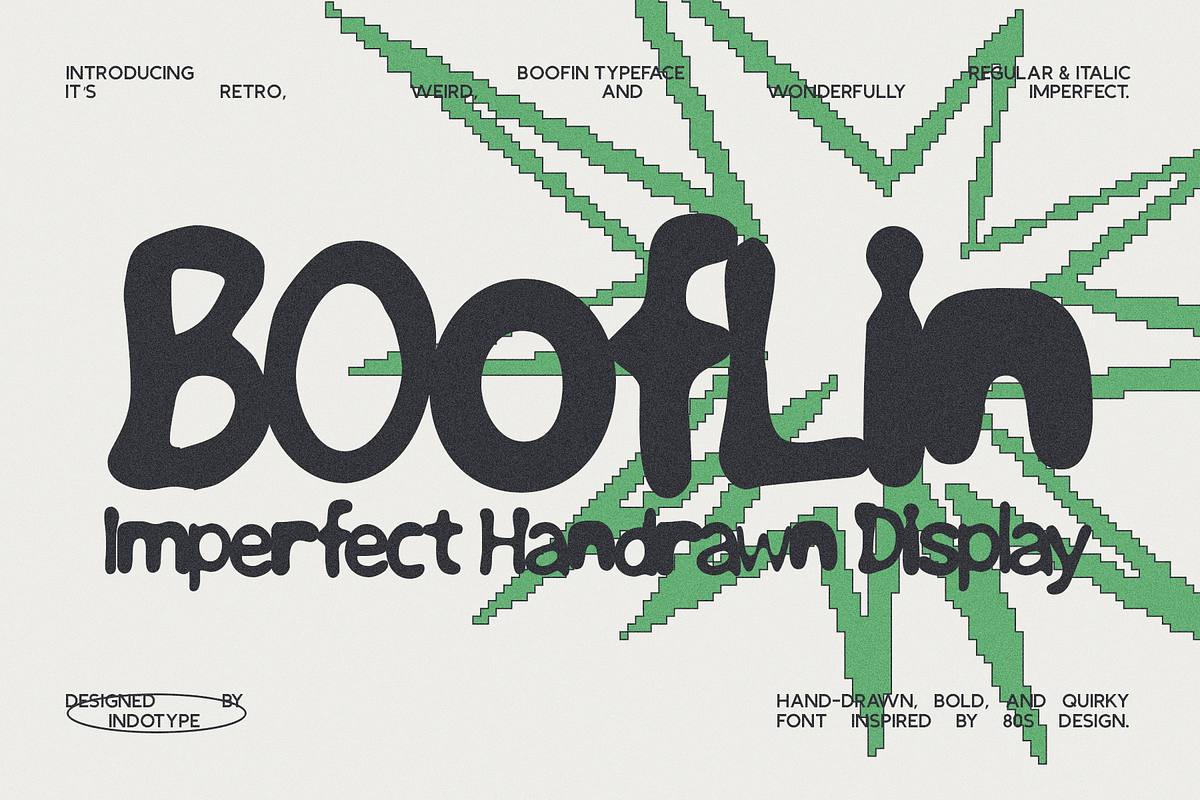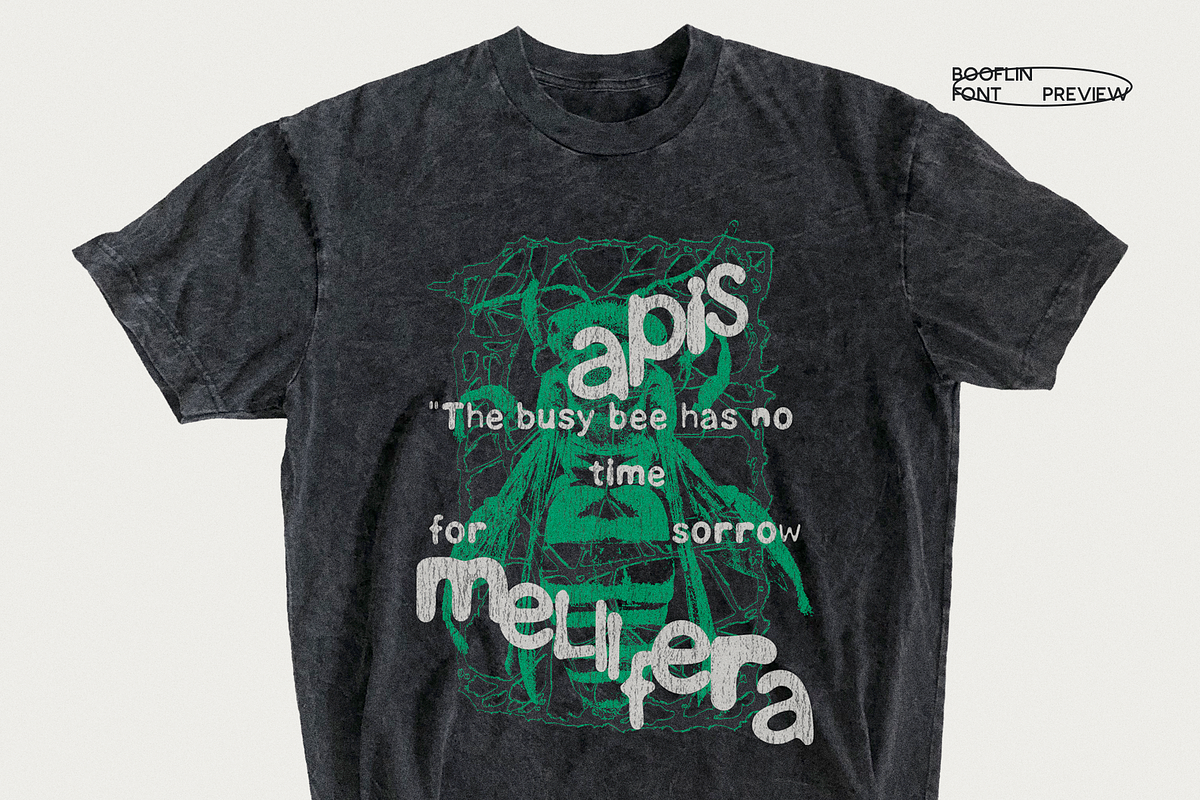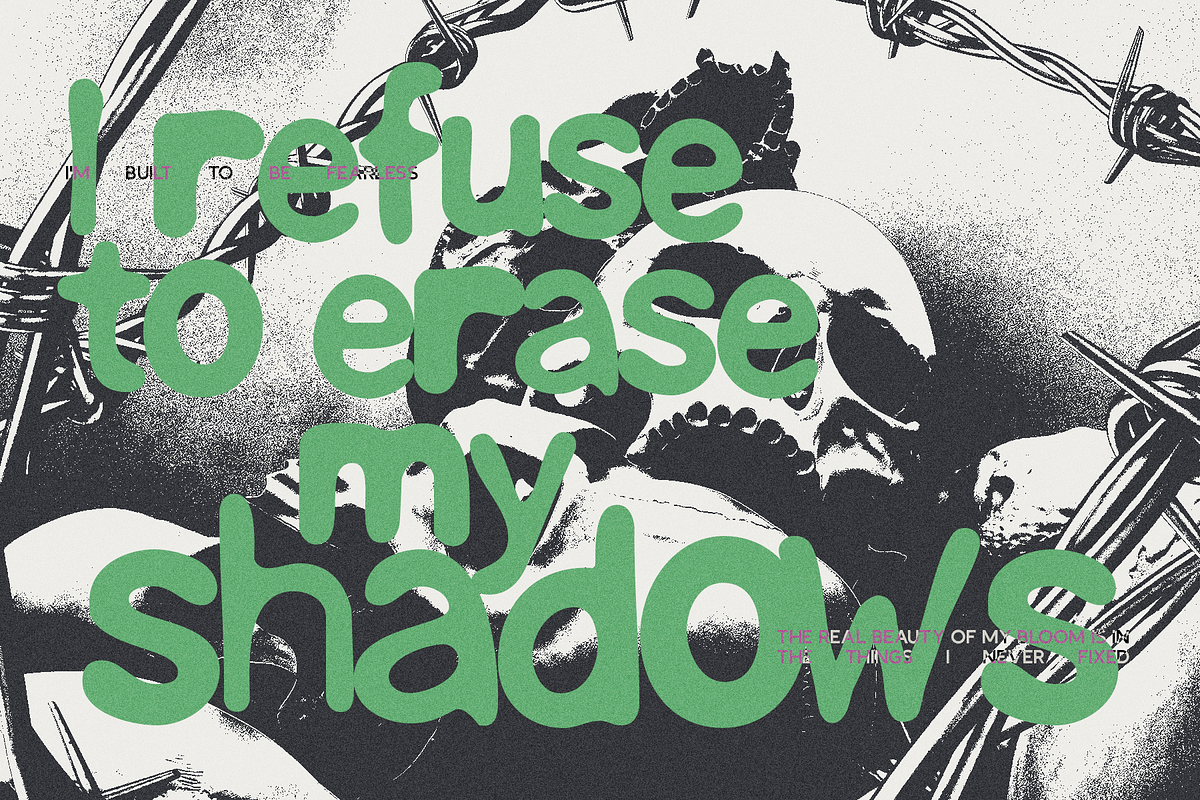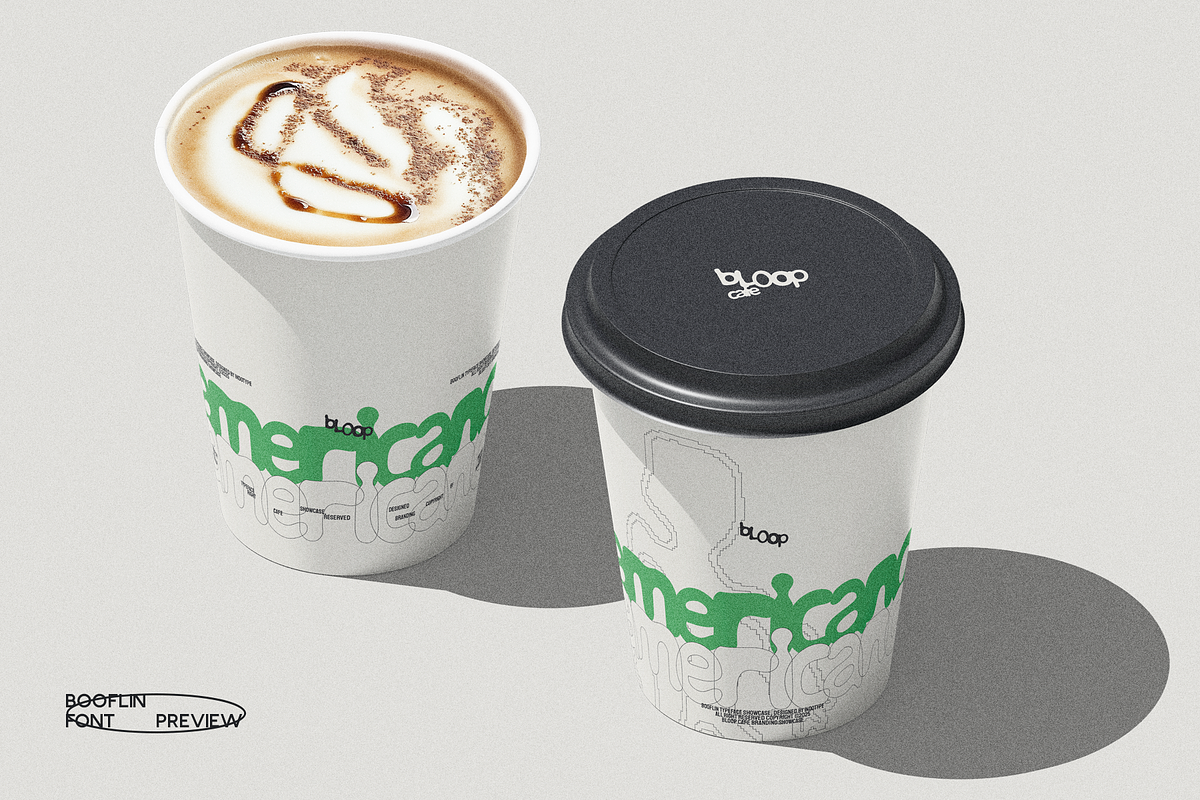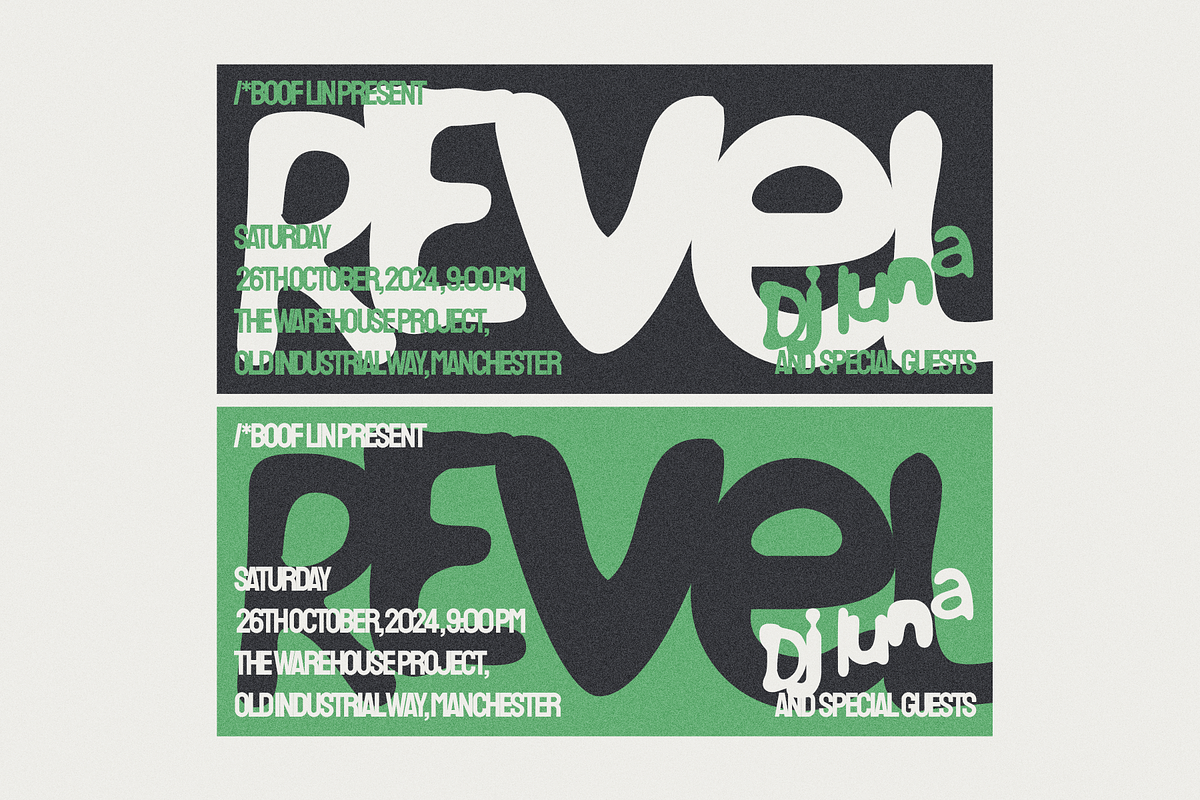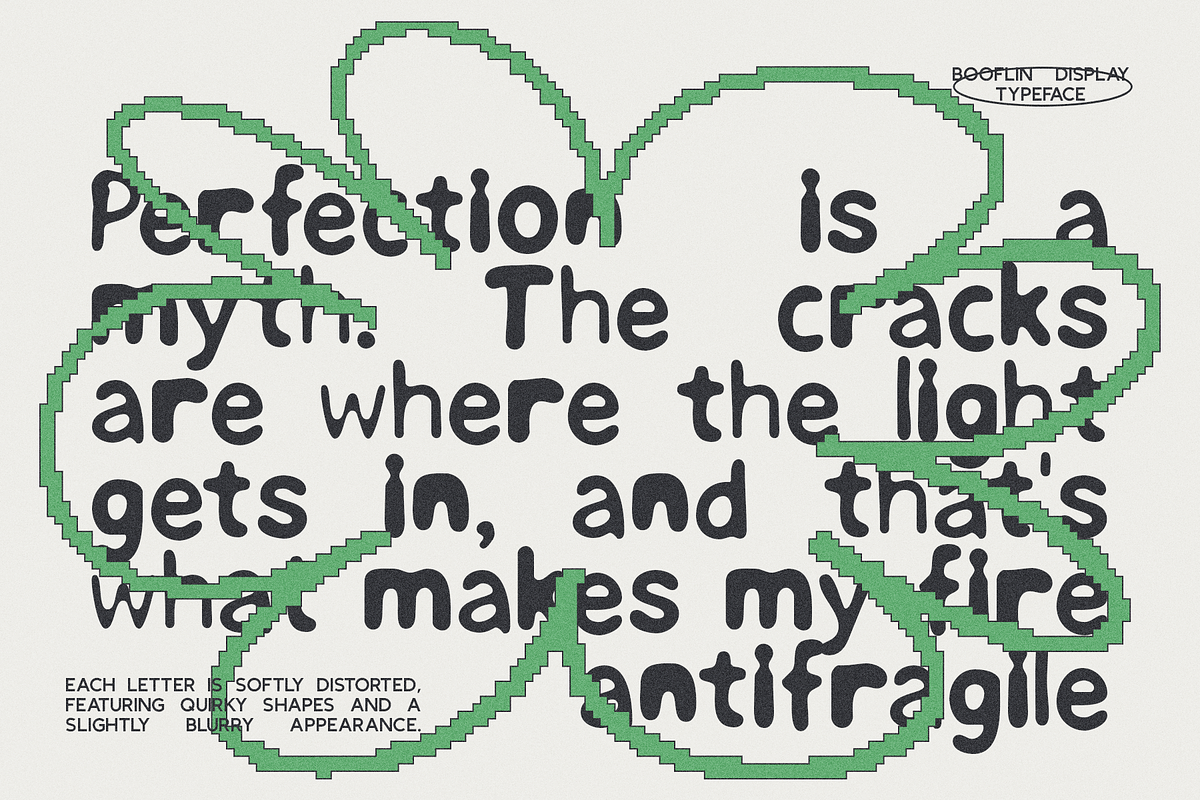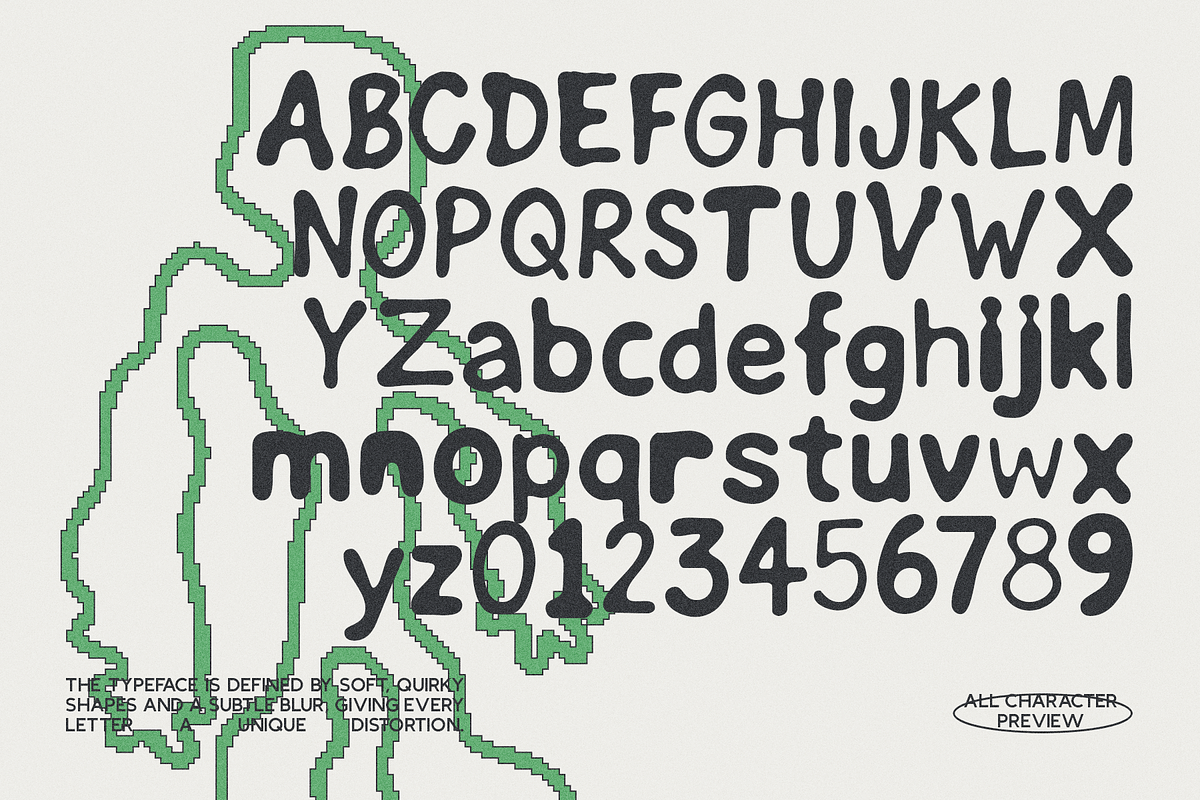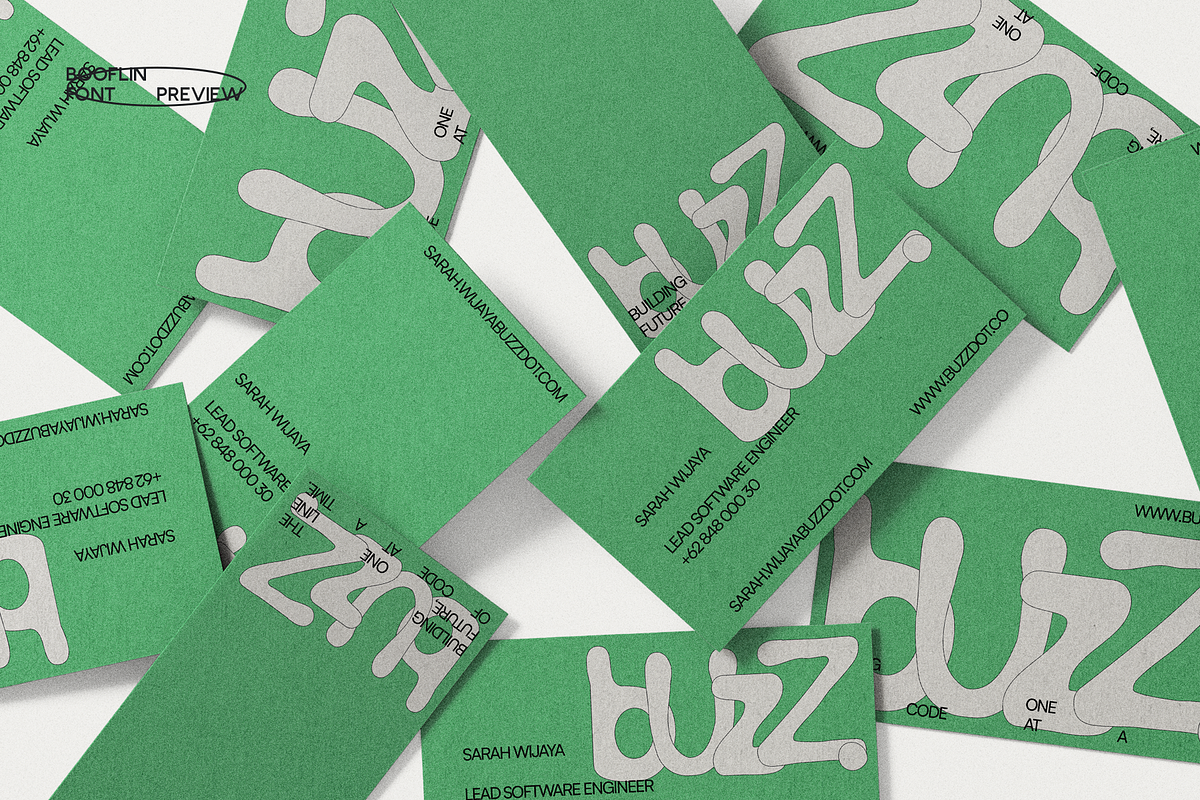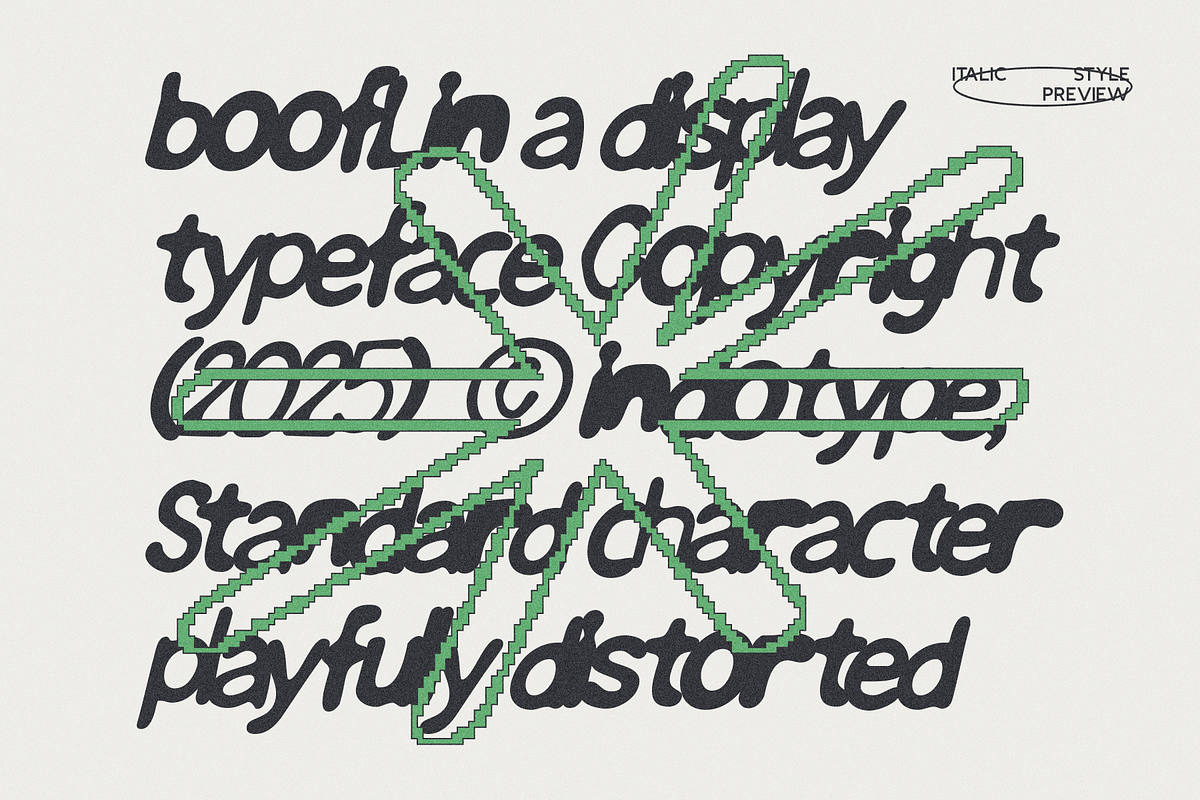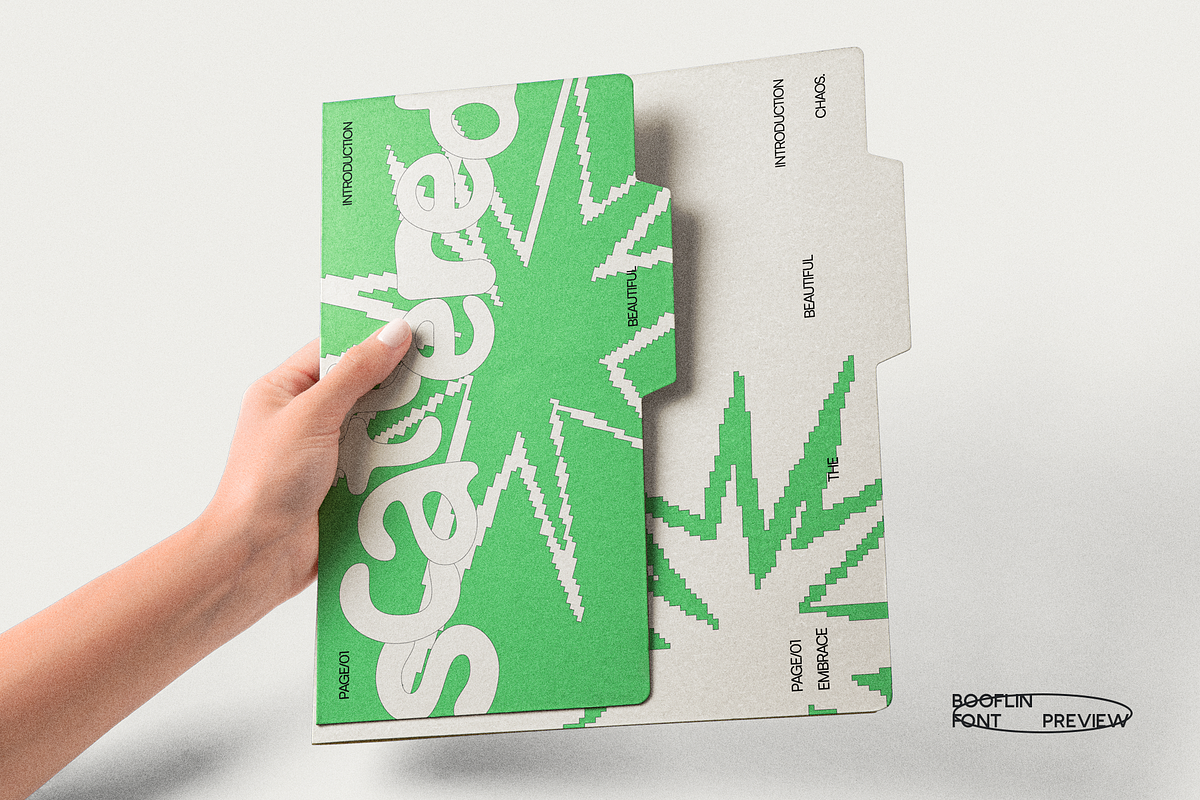
Booflin - Imperfect Hand-drawn
Booflin is a hand-drawn display typeface that celebrates imperfection in the most fun, quirky, and nostalgic way. Its bold, bouncy, and irregular letterforms are filled with personality — inspired by retro 80s aesthetics and the charm of imperfect handmade design. Booflin embraces the raw beauty of uneven shapes and spontaneous strokes. Each character feels unique, like it was drawn by hand with expressive motion and zero restraint — making it perfect for posters, branding, packaging, editorial titles, and creative social media graphics. Whether you’re designing something retro, playful, or weirdly wonderful, Booflin brings your words to life with its imperfect rhythm and friendly, organic appeal. It comes in Regular and Italic styles, offering flexibility while keeping its authentic, human touch intact.